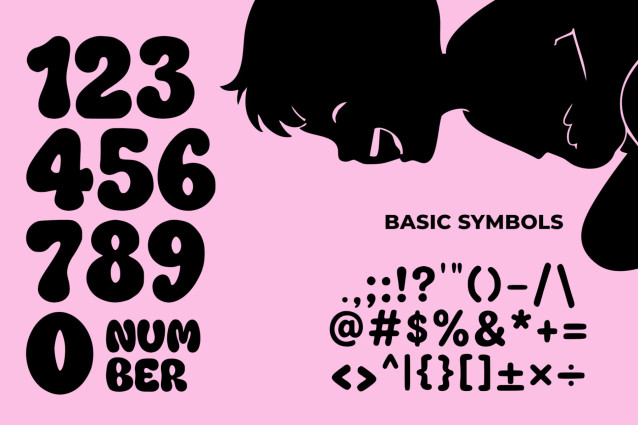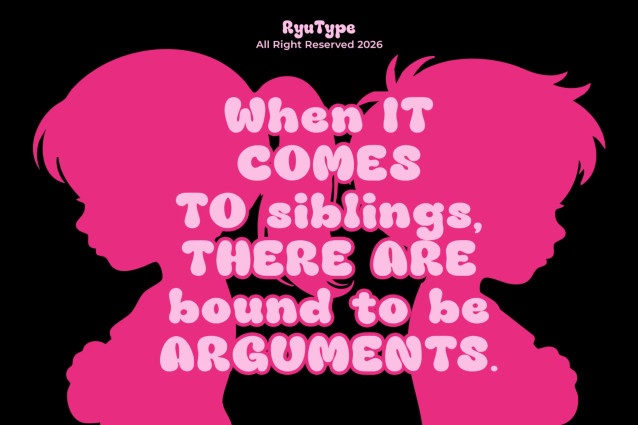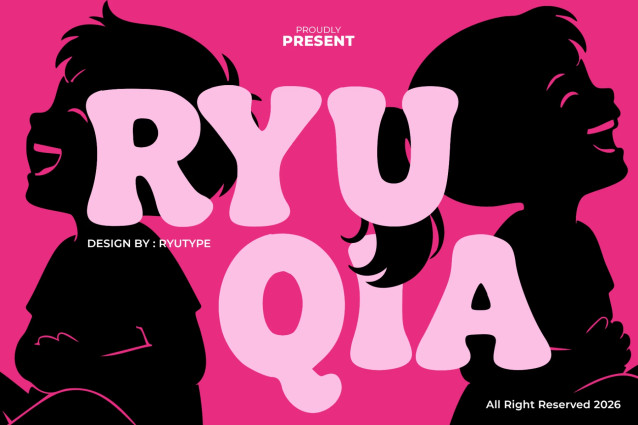
RYUQIA Font is a cute and bubbly display type inspired by playful retro lettering and soft cartoon aesthetics. It features chunky rounded forms, smooth curves, organic proportions, and charming irregular details that give each letter a friendly personality — perfect for kids’ branding, stickers, packaging, posters, apparel, social media graphics, and fun lifestyle designs.
Ryuqia Display Font